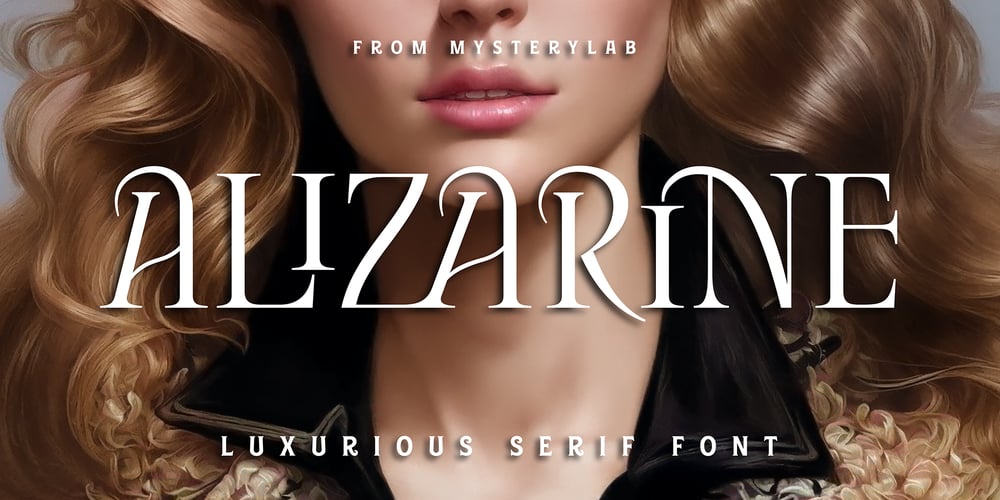
Alizarine Font Family was designed by Mott Jordan and published by Mysterylab. Alizarine contains 2 styles and family package options. Alizarine is an elegant and luxurious serif font with flowing embellishments. This posh typeface features medium weight with a matching italic, and includes many capital ligature pairs. Excellent for high fashion couture, jewelry, boutique logos, perfume branding, arts organizations, museums, book titles, web banners, and much more.